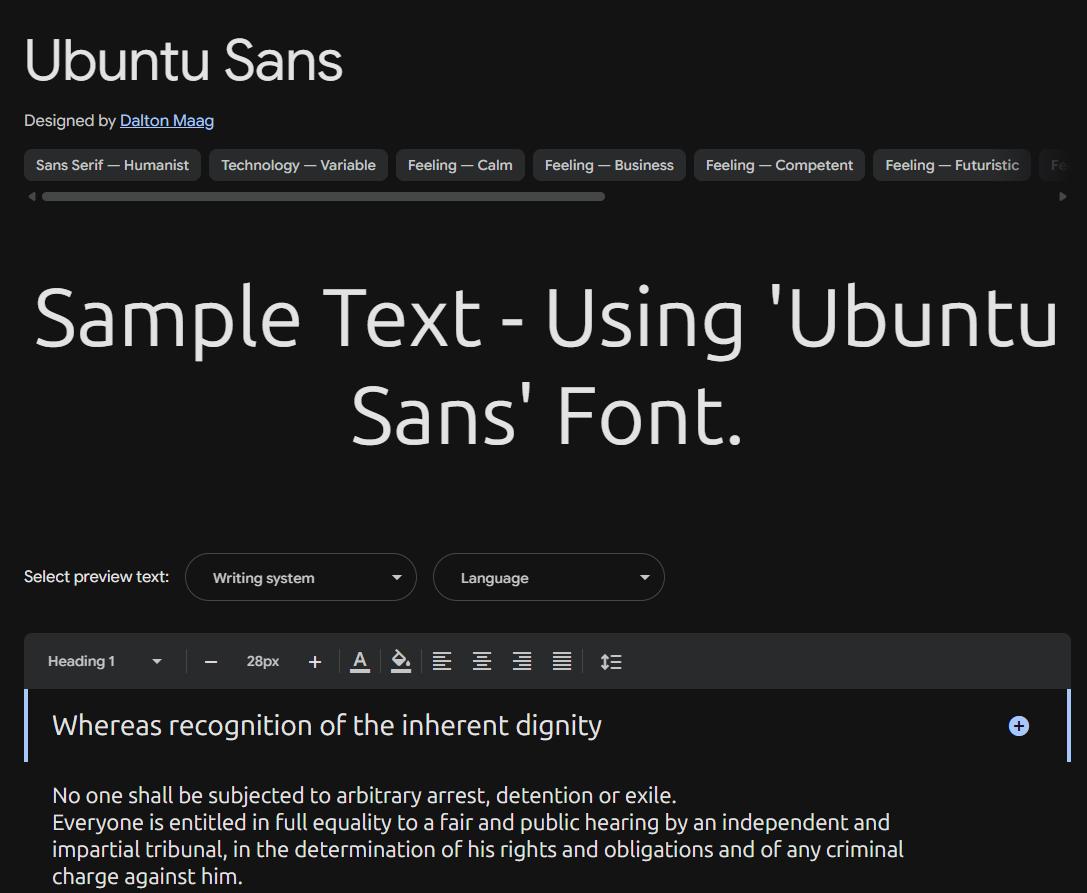
Engineered by Dalton Maag as a core component of the Canonical brand evolution, Ubuntu Sans serves as a high-performance variable font that masterfully synthesizes geometric humanism with modern technical flexibility. By implementing a sophisticated three-axis design space-Weight (wght), Width (wdth), and Italic (ital)-the typeface enables seamless interpolation, allowing developers to manipulate its signature rounded terminals and humanist proportions through granular CSS custom properties. This variable architecture not only reduces total payload size compared to traditional static families but also enhances accessibility across diverse display densities, ensuring that its distinct apertures and rhythmically balanced counters remain legible from micro-copy in command-line interfaces to expansive display headings in global marketing campaigns.
The Ubuntu Sans font family represents a sophisticated synthesis of humanist sans-serif logic and cutting-edge variable technology, engineered to deliver a typographic performance that spans the emotional spectrum of the modern interface. Its signature spurless terminals and high x-height create a competent, business-ready aesthetic that feels inherently sincere and calm, while the fluid interpolation of its weight axes allows for a transition into a loud, futuristic, and rugged presence when high-impact visual hierarchy is required. By balancing its calligraphic heritage-which lends a hint of vintage charm and a happy, approachable clarity-with a stiff, disciplined structural integrity, Ubuntu Sans provides a unique semantic depth that adapts to diverse digital environments without losing its distinct open-source identity.
Ubuntu Sans Variable, engineered by Dalton Maag with its signature spurred terminals and humanist curvature, is fundamentally ill-suited for ultra-luxury heritage branding or conservative legal environments where high-contrast serifs or rigid geometric neutrality are the prerequisites for institutional gravitas. While its three-axis variable architecture-spanning Weight, Width, and Italic-provides exceptional fluid interpolation for responsive digital interfaces, the typeface's inherent "open-source" warmth and idiosyncratic character spurs clash with the stoic, exclusionary aesthetic required by high-end horology or artisanal fashion houses that typically favor Didones or austere Grotesques. Furthermore, in the context of high-density financial reporting or legacy print matrices, the generous counters and distinctive rhythmic cadence of the Ubuntu family can disrupt the "mechanical anonymity" necessary for tabular data, as its humanist personality creates a visual texture too vibrant for environments demanding total typographic invisibility.
The Ubuntu Sans font family provides a comprehensive range of weights including Thin, Light, Regular, Medium, Bold, and Extra Bold to ensure typographic flexibility. Variable font technology allows for precise interpolation across the weight axis, optimizing the optical weight balance for high-DPI displays.
Ubuntu Sans is designed with a high x-height and open counters, making it highly versatile for both long-form body copy and prominent display headers. The distinct spurless characters reduce visual noise, a design choice that enhances semantic legibility in complex UI hierarchies.
This font maintains exceptional clarity at small point sizes due to its generous apertures and balanced letter spacing. Recent rendering engine benchmarks indicate that its specific hinting instructions minimize anti-aliasing artifacts on low-resolution screens.
The family includes a full suite of true italics and bold-italics, rather than simple oblique slants, to maintain consistent stroke rhythm across all weights. These italic variants feature unique cursive-inspired constructions that provide a significant contrast in the font's typographic gray value.
Ubuntu Sans pairs effectively with transitional serifs like Lora or classical faces like Playfair Display to create a balanced visual hierarchy. Matching the large x-height of Ubuntu Sans with a high-contrast serif ensures a consistent baseline alignment and harmonic vertical metrics.
The font features extensive character support encompassing the Latin, Greek, and Cyrillic script systems for global accessibility. By integrating the Unicode 15.0 glyph set, Ubuntu Sans facilitates seamless localization across diverse linguistic regions without layout shifts.
While primarily available in standard widths, the Ubuntu Sans family includes Mono and Condensed versions tailored for space-constrained interfaces. The Condensed variant utilizes a tighter horizontal rhythm that preserves the signature curves while maximizing character-per-line density.
For display headers, reducing the letter-spacing or tracking slightly helps to maintain a tight, cohesive visual impact at larger sizes. Negative kerning adjustments in CSS are particularly effective because the font's geometric construction allows for tight overlap without sacrificing glyph recognition.
In high-density print environments, the font demonstrates high legibility thanks to its wide apertures which prevent ink bleed or clogging. Laboratory print tests reveal that the font's stroke modulation compensates for dot gain, ensuring clarity even on uncoated high-absorbency paper stocks.
Ubuntu Sans includes essential OpenType features such as standard ligatures, tabular figures, and localized forms for various languages. The inclusion of discretionary ligatures and stylistic sets allows developers to implement advanced CSS properties like font-variant-ligatures for refined digital typography.